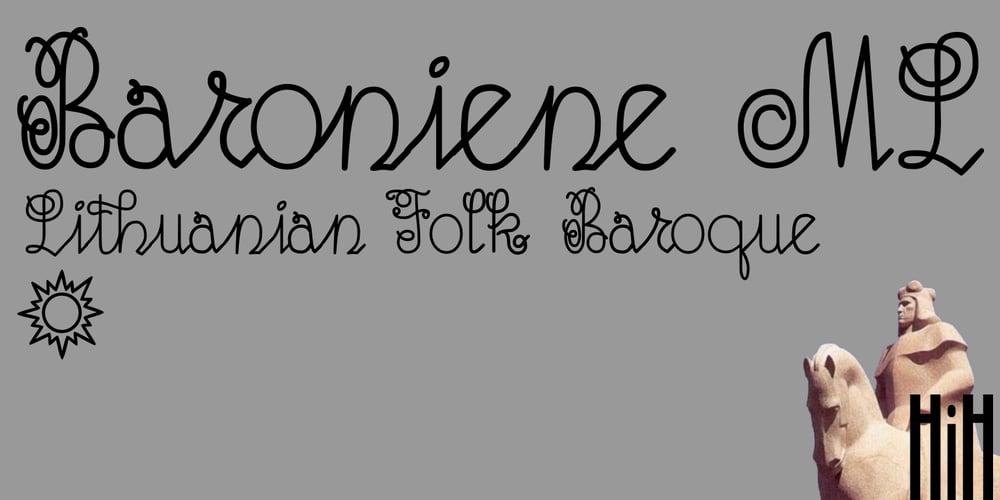
Baroniene ML Font Family was designed by Genovaite Baroniene and published by HiH. Baroniene ML contains 1 styles and family package options. Genovaite Baroniene is former school teacher and a native of Lithuania who loves fancy letters. When she writes, she likes to add extra flourishes to her handwriting and printing. It simply appeals to her to do so. While living in the United States a few years ago and working in the health care field, she put pen to paper to provide a specimen of her writing from which a font could be developed. The process has taken longer than either of us expected. Now we are finally able to present Baroniene ML, a stylishly unique example of what we call Lithuanian Folk Baroque. Baroniene ML has a total of 362 glyphs, including the Unicode Latin Extended-A glyphs (0100 to 017F), covering the more widely-used Central European languages. To resolve the cedilla/undercomma conundrum, we have chosen to design a hybrid disconnected accent for use with C, G, K, L, N, R, S & T. We hope this solution is acceptable to users of Albanian, Catalan, French, Latvian, Portuguese, Romanian and Turkish. Baroniene ML also comes with four ligatures: gh, Th, th and Ch (167, 172, 177 and 181). Baroniene ML is certainly not the polished script of a professional calligrapher. It is very personal. The human source is still visible in its form. The letter spacing is uneven. Some of the curves are not quite perfect. In sum, the individuality has not been refined out of it. That is why it is so charming. If you want for a font that has a very different look, perhaps Baroniene ML is what you need.